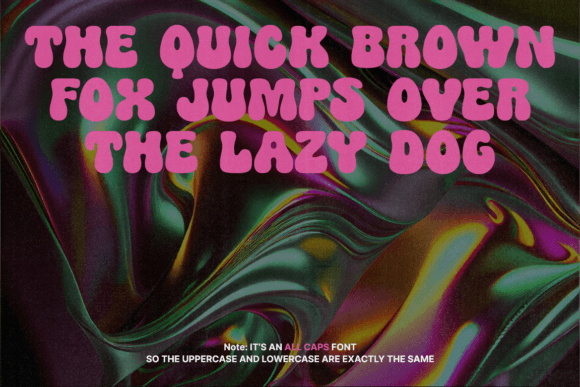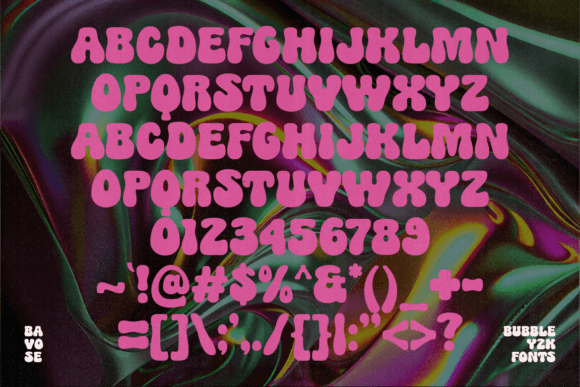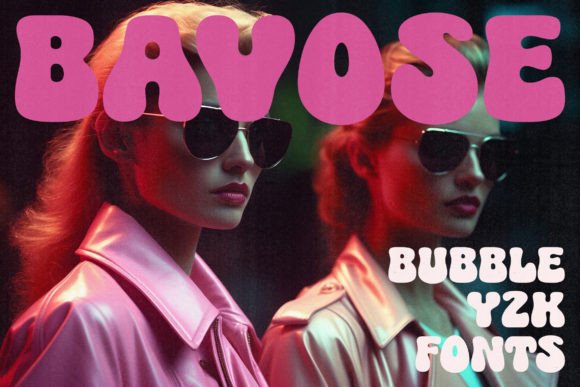
Bavose Font: Retro Bubble Font for Groovy Headlines & Social Media
About the Bavose Font
Welcome to the world of Bavose Font, a typeface that will inspire your next great project. Wanna level up your designs? Bavose offers a blast from the past, bringing those old-school vibes to your fingertips. Say goodbye to basic fonts and get ready to flex your creativity with fonts that’ll make your graphics totally tubular!